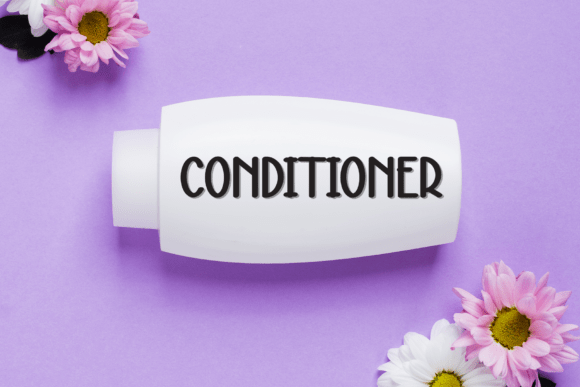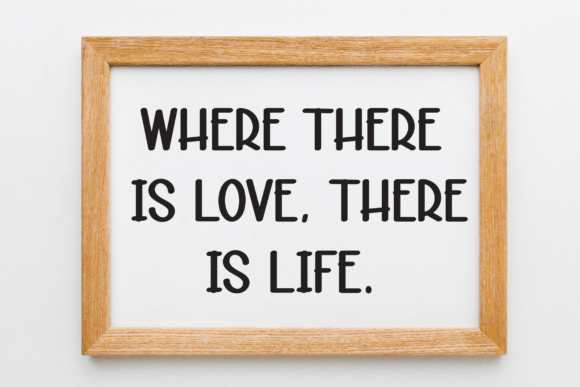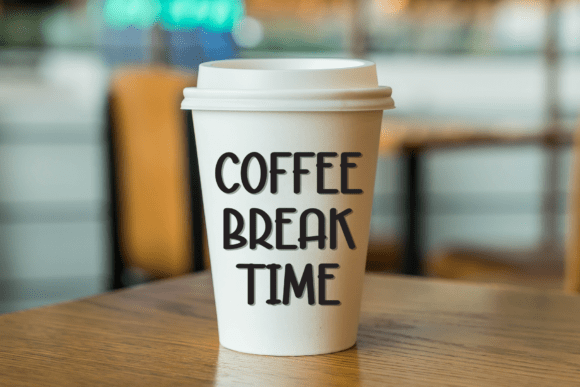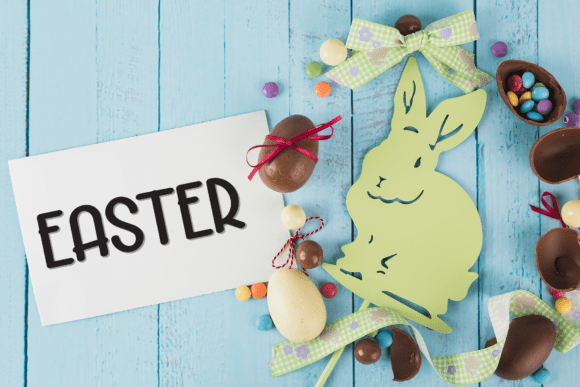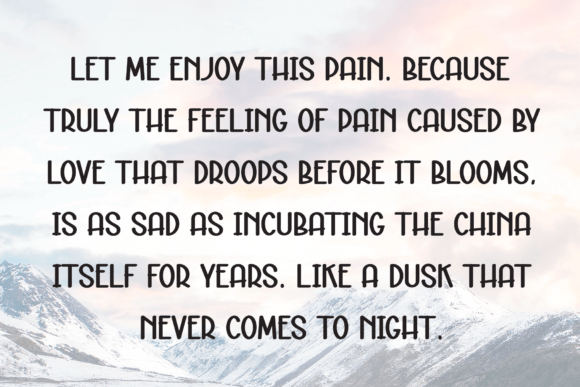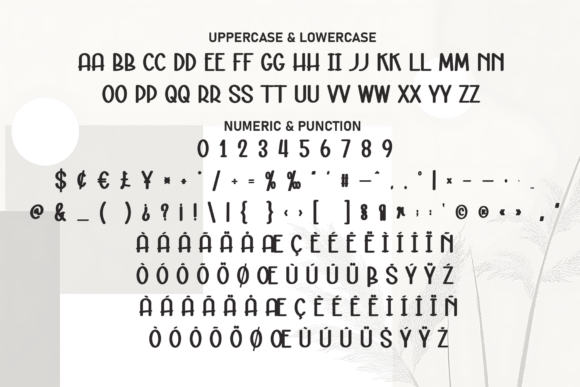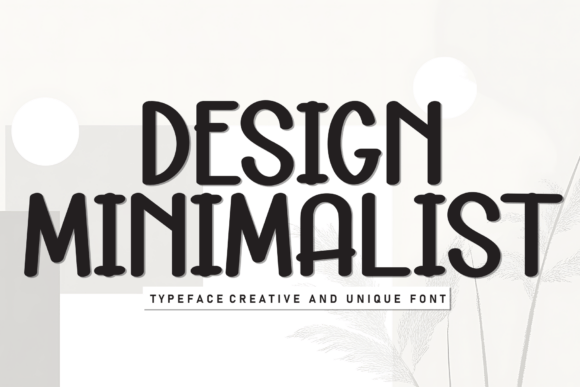
Embracing Simplicity: The Beauty of Design Minimalist Font
In the world of typography, fonts play a crucial role in conveying messages, expressing emotions, and creating lasting impressions. Among the numerous font styles available, minimalist fonts have gained significant popularity for their clean, simple, and elegant appearance. One such font that has caught the attention of designers and crafters is the Design Minimalist Font. In this article, we’ll explore the features, benefits, and uses of this beautiful font, and why it’s becoming a favorite among creative professionals.
What is Design Minimalist Font?
Design Minimalist is a casual and neat display font designed to bring warmth and clarity to your projects. With its clean structure and approachable style, it suits branding, headlines, and everyday designs. The balanced letterforms offer readability and charm, making every message feel genuine and inviting. This font is perfect for designers who want to add a touch of simplicity and elegance to their work.
Key Features of Design Minimalist Font
- Clean Structure: The font features a clean and simple structure, making it easy to read and understand.
- Approachable Style: The font has an approachable style that makes it perfect for branding, headlines, and everyday designs.
- Balanced Letterforms: The letterforms are balanced, offering readability and charm, making every message feel genuine and inviting.
- Warmth and Clarity: The font is designed to bring warmth and clarity to your projects, making it perfect for a wide range of applications.
Benefits of Using Design Minimalist Font
The Design Minimalist Font offers several benefits to designers and crafters. Some of the key benefits include:
- Improved Readability: The font’s clean structure and balanced letterforms make it easy to read and understand, even at small sizes.
- Enhanced Aesthetics: The font’s simple and elegant appearance makes it perfect for adding a touch of sophistication to your designs.
- Versatility: The font is suitable for a wide range of applications, including branding, headlines, and everyday designs.
- Time-Saving: The font’s clean and simple structure makes it easy to use and saves time in the design process.
Uses of Design Minimalist Font
The Design Minimalist Font is a versatile font that can be used in a variety of applications, including:
- Branding: The font is perfect for creating logos, business cards, and other branding materials.
- Headlines: The font’s clean and simple structure makes it ideal for headlines, titles, and other display text.
- Everyday Designs: The font is suitable for everyday designs, such as brochures, flyers, and social media graphics.
- Digital Designs: The font can be used in digital designs, such as websites, mobile apps, and email marketing campaigns.
Tips for Using Design Minimalist Font
Here are some tips for using the Design Minimalist Font effectively:
- Use it with Confidence: The font’s clean and simple structure makes it easy to use with confidence.
- Experiment with Sizes: The font looks great at a variety of sizes, so don’t be afraid to experiment.
- Pair it with Other Fonts: The font pairs well with other fonts, so feel free to get creative with font combinations.
- Keep it Simple: The font’s simplicity is its strength, so keep your design simple and elegant.
In conclusion, the Design Minimalist Font is a beautiful and versatile font that can add a touch of simplicity and elegance to your designs. With its clean structure, approachable style, and balanced letterforms, it’s perfect for a wide range of applications, from branding and headlines to everyday designs. Whether you’re a designer or crafter, this font is definitely worth checking out.